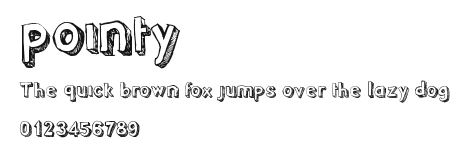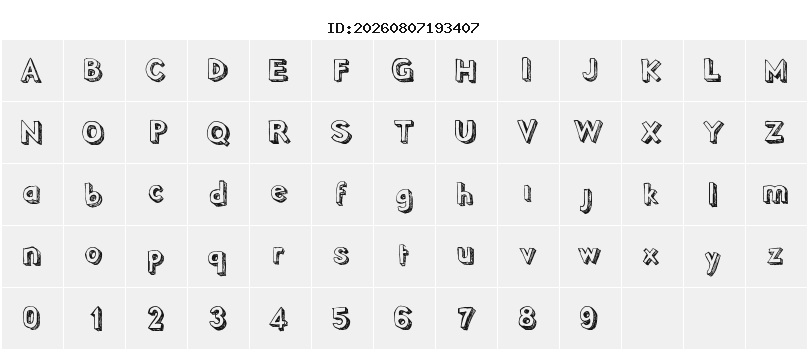
pointy Preview
• Font Name: pointy
• Full Font Name: pointy
About pointy.ttf
pointy.ttf is a modern, elegant sans-serif font designed for ultimate readability and visual harmony. Perfect for branding, headlines, web design, and print materials.